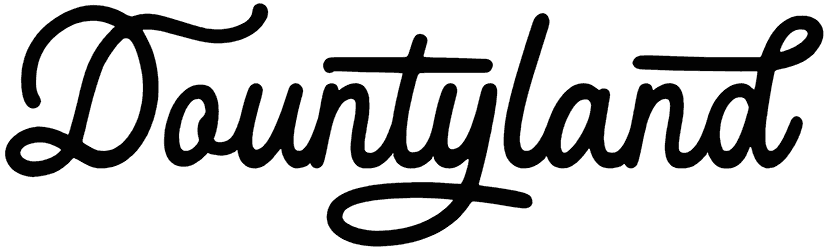
Dountyland Font
The tasteful form of this handwritten font is going to throw an appealing vibe into your modern or classic designs. The smooth and realistic style of this cursive font can impress your observers. Give the Dountyland font a chance and set it for your new design of a restaurant façade or so forth, and enjoy the final show.